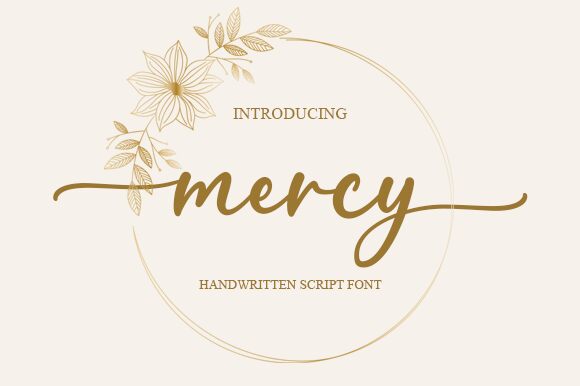
Mercy
Mercy is a stunningly elegant semi-light font designed by Graphix Line Studio, which perfectly captures the essence of handwritten notes. Its fluid strokes and delicate curves make it a great choice for any project that needs to convey warmth and friendliness. Mercy is perfectly suited for designs that need to evoke emotions like love, affection, and sympathy. Use it for greeting cards, wedding invitations, or even personal blogs that require a touch of sophistication. With its unique style and distinctive character, Mercy can easily transform your designs into something truly special.